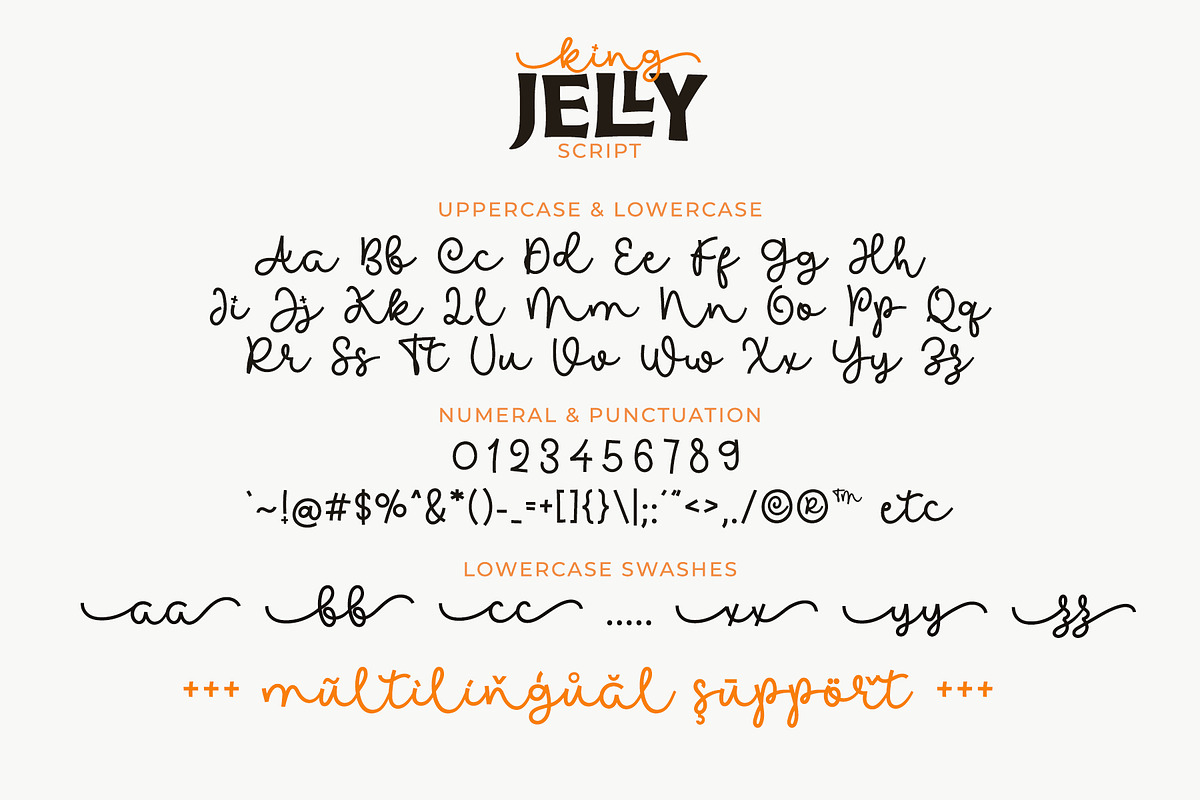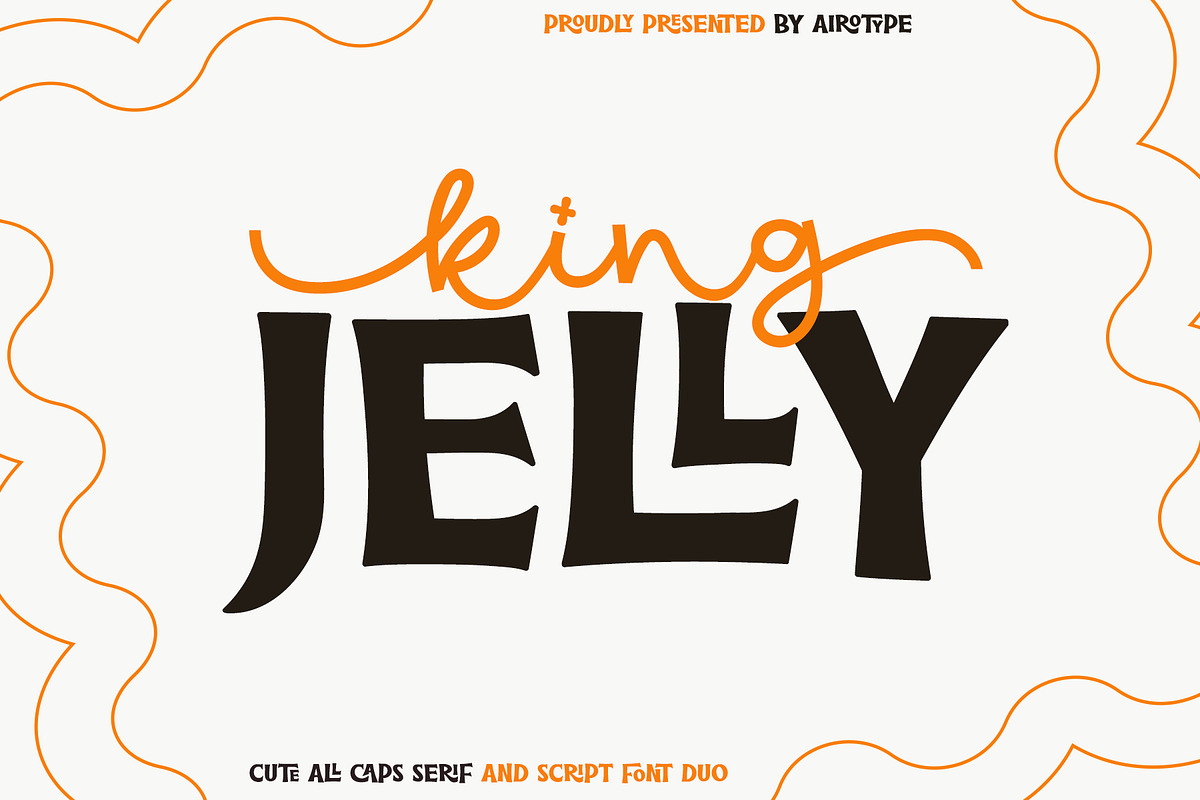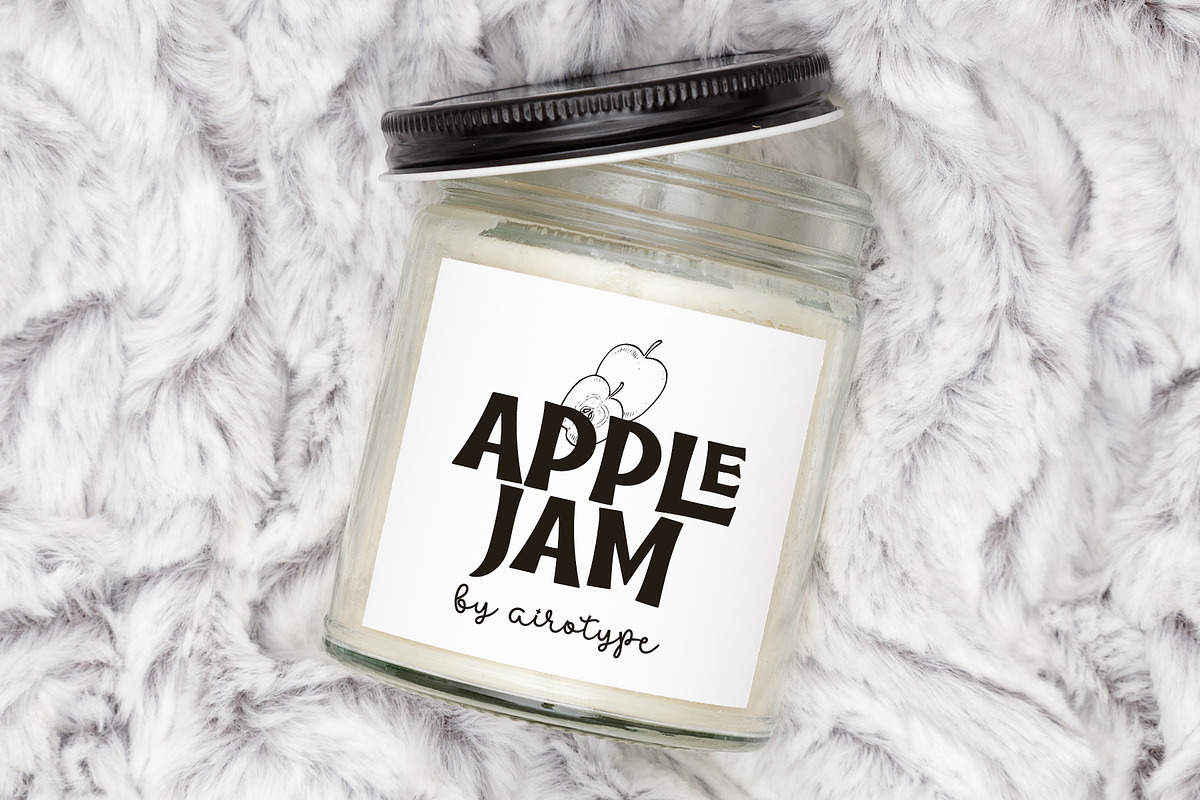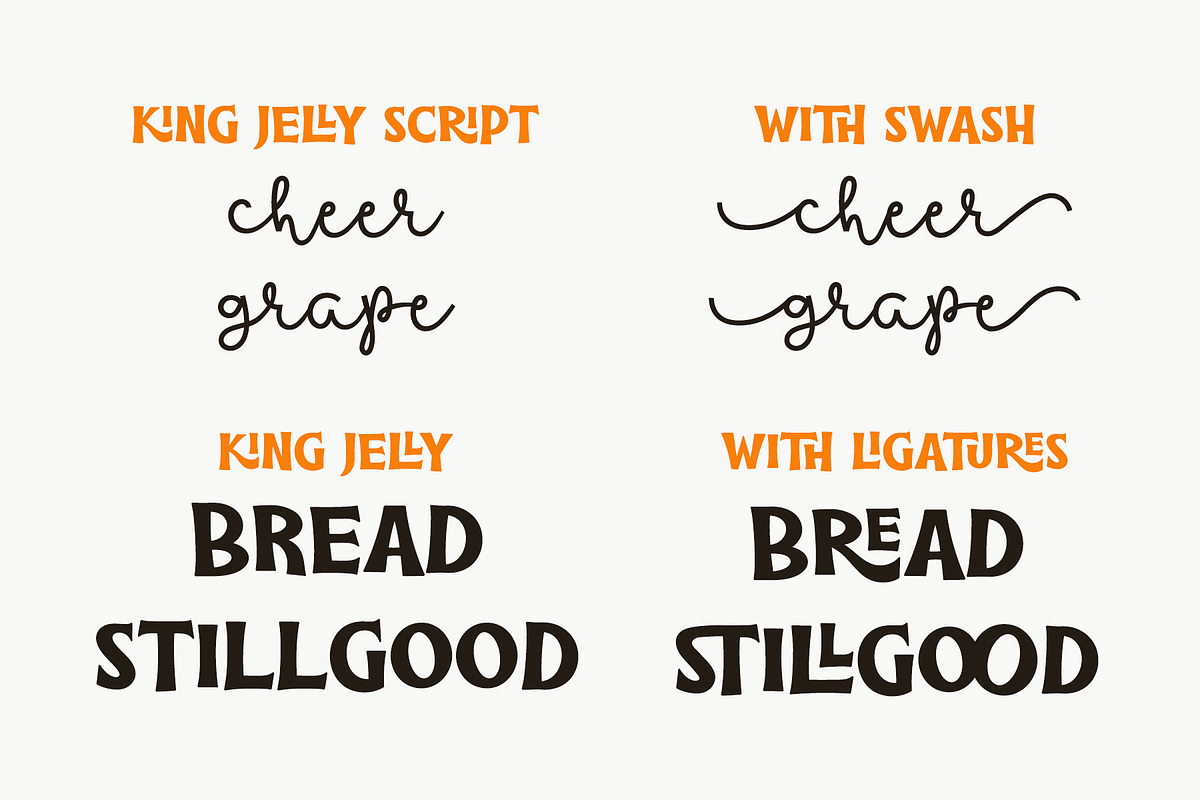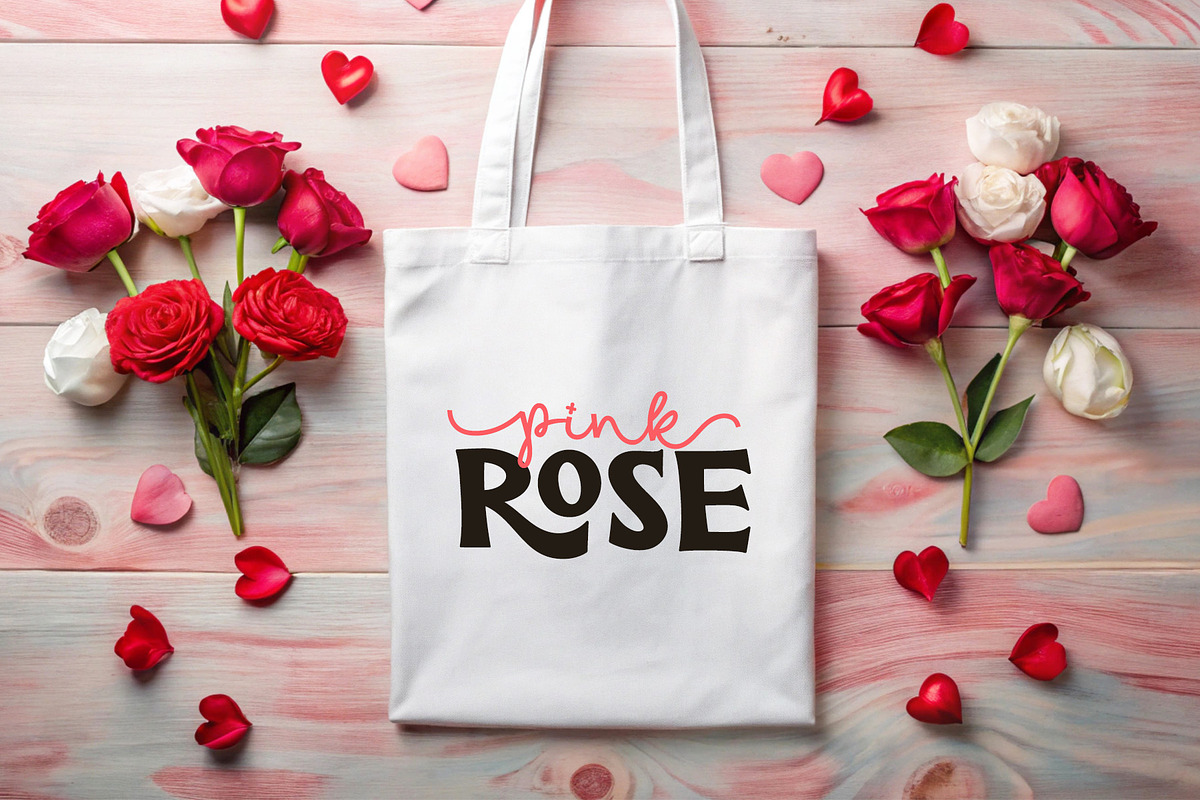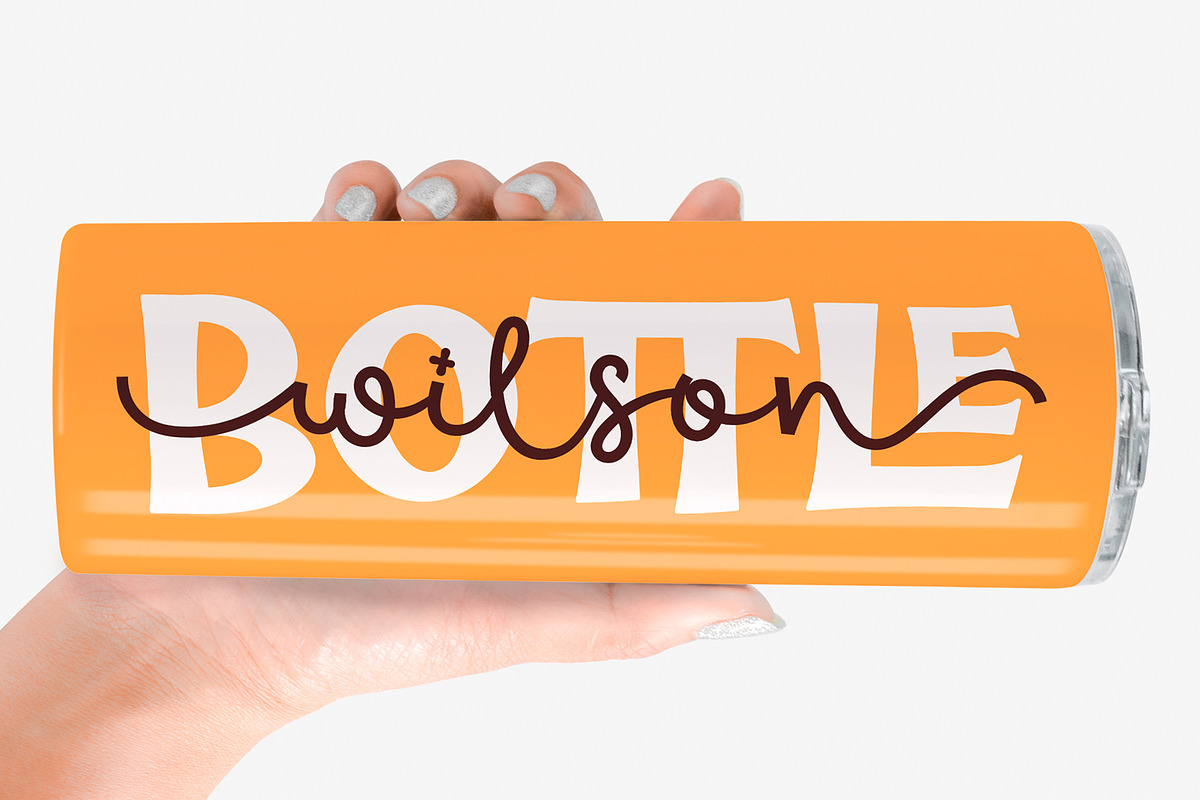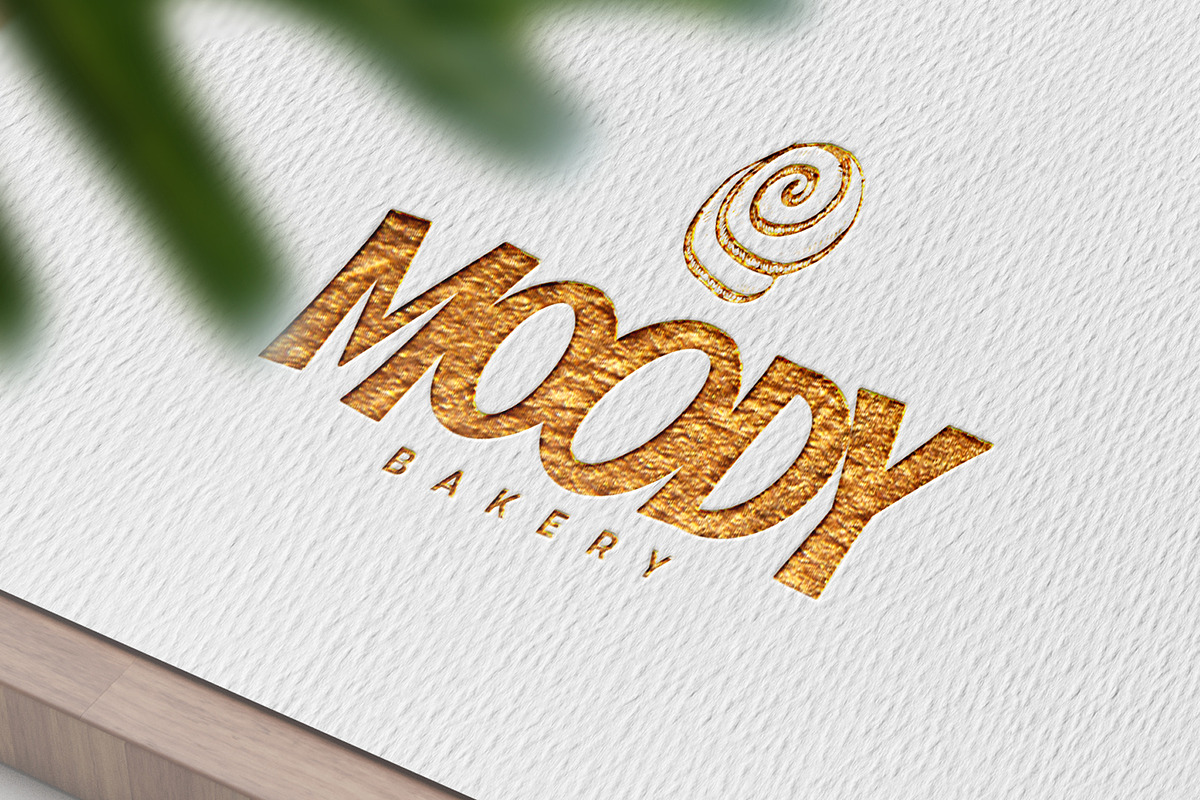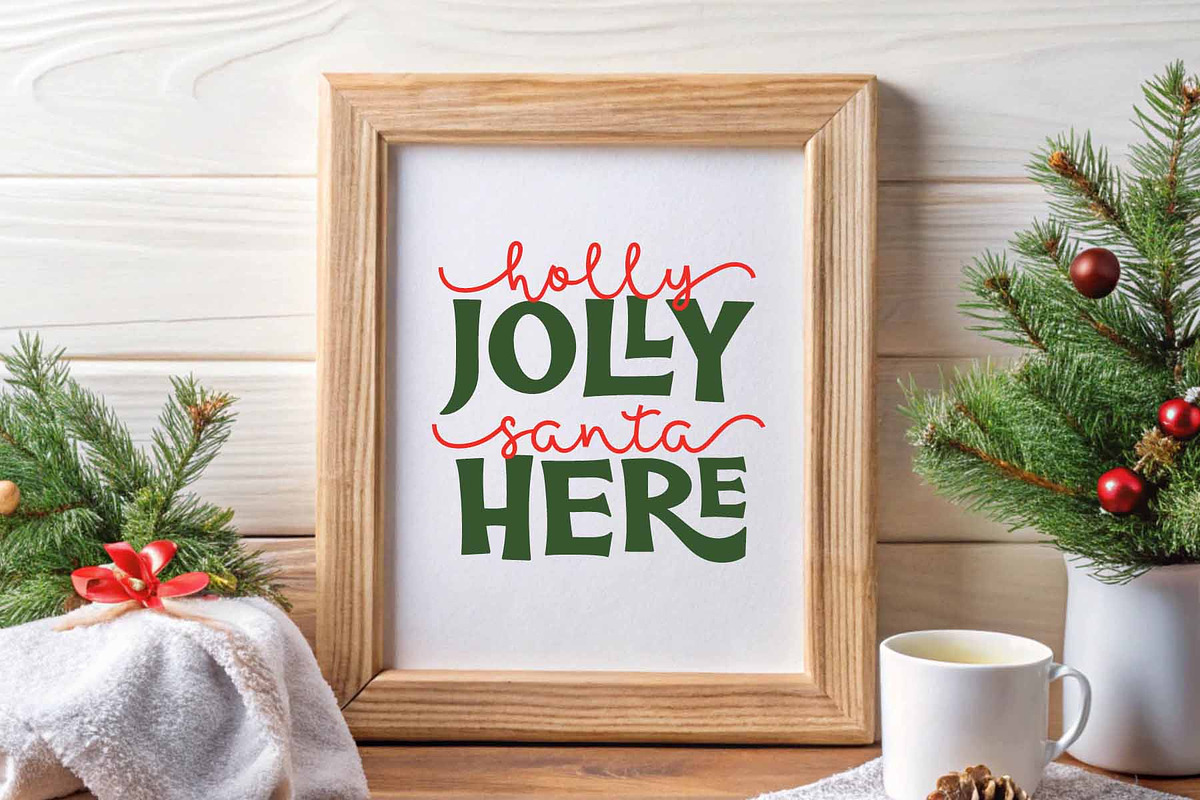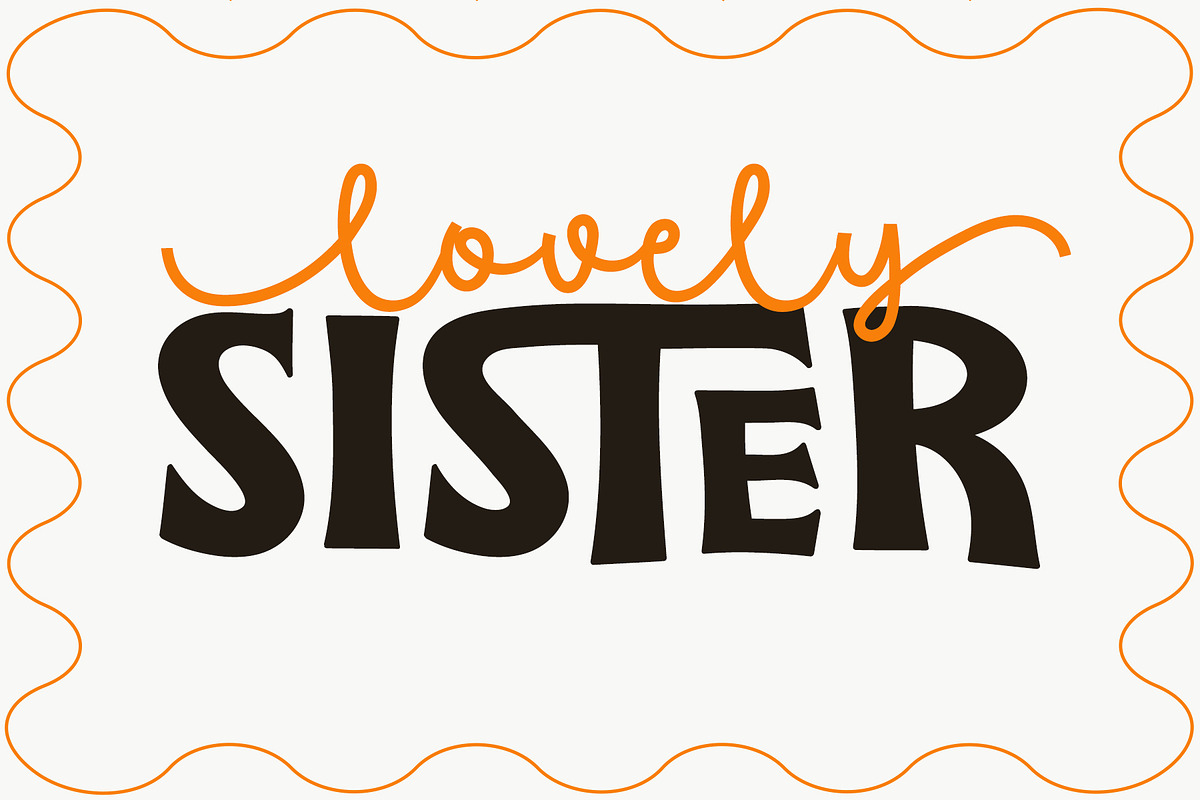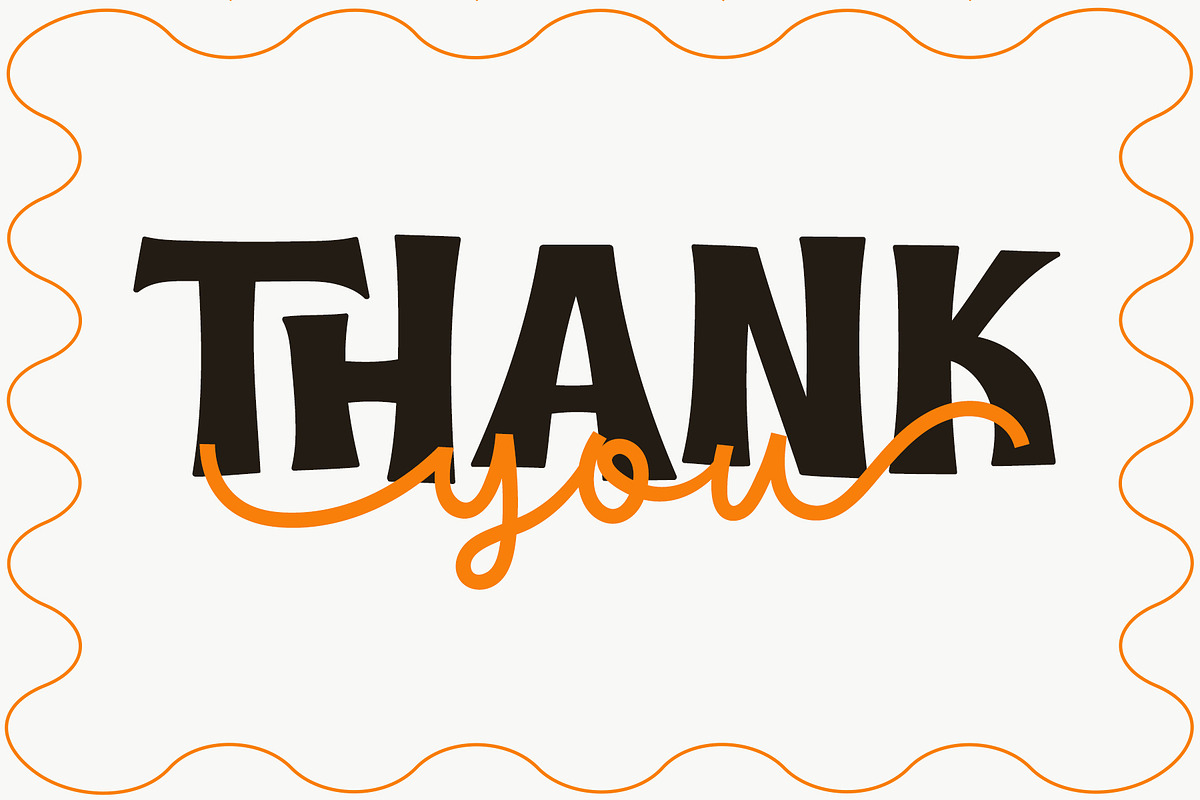
King Jelly - Cute Handwritten Duo
King Jelly is cute and festive font duo that combines handwritten script font and all caps bold serif font. This font duo radiates cuteness, happiness, and fun.
This font duo is perfect to be used as a pair. the combination of bouncy cursive tail font and bold display serif with few ligatures makes the design looks fancy. Beside, this font can also be used individually.
King Jelly is pretty and adorable font for design with cute and playful theme, such as baby, kids, school design, holiday, birthday invitation, summer design, holiday, t-shirt design, crafting, sticker, sublimation, and many more.
- King Jelly Script: Uppercase & Lowercase (with lowercase tail swash)
- King Jelly Display Serif: All Caps (with few uppercase ligatures)
- Most Multilingual Accent